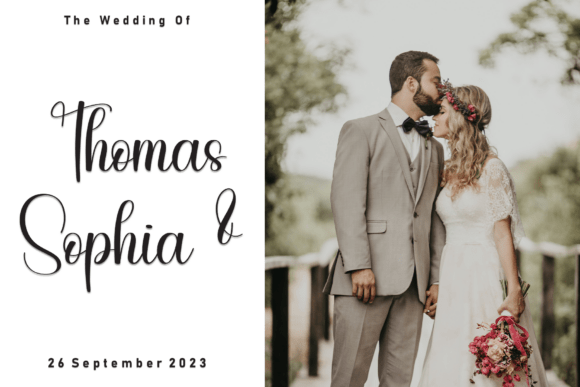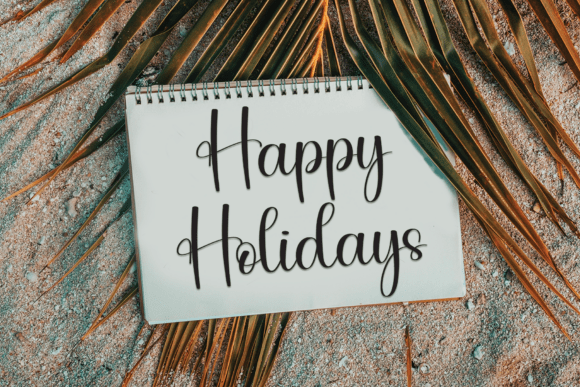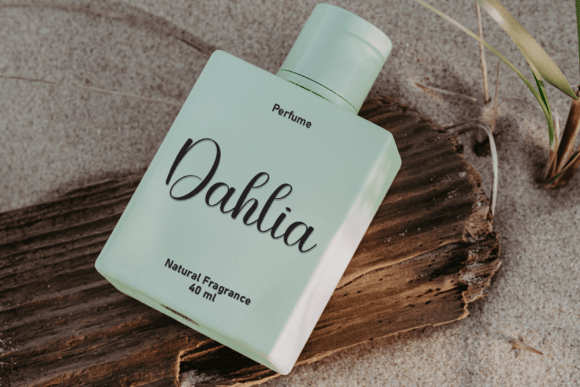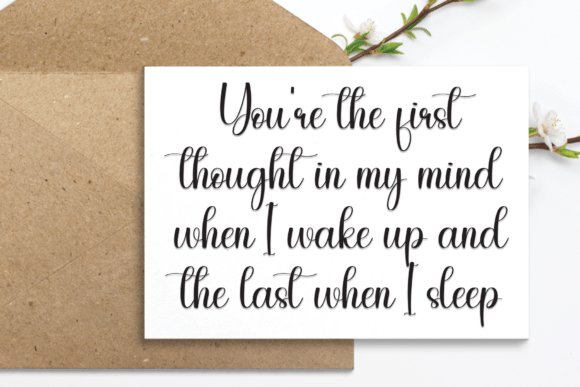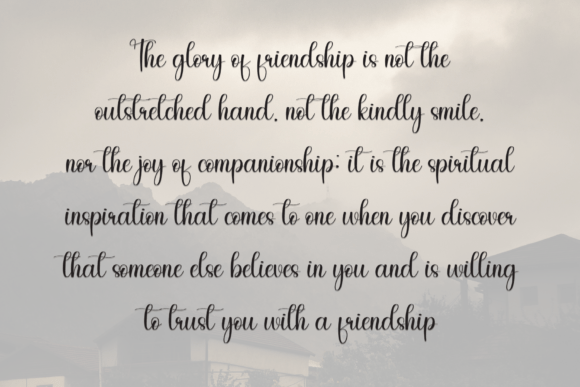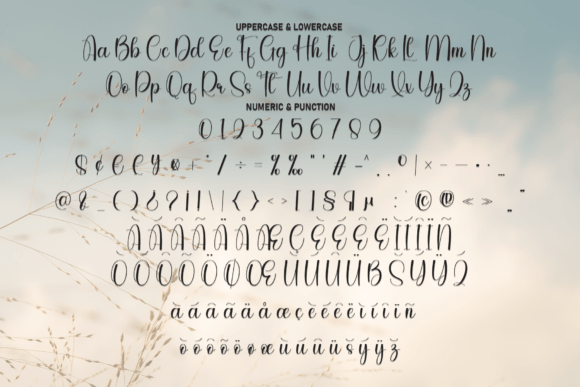
Aesthetic Font: Adding a Touch of Sweetness and Friendliness to Your Designs
In the world of typography, fonts play a crucial role in conveying the tone and personality of a design. When it comes to creating visually appealing and emotive designs, the right font can make all the difference. This is where our handcrafted display font comes in – a delightful and charming font that embodies an intimate touch of sweetness and friendliness. In this article, we’ll dive into the features and benefits of this aesthetic font, and explore how it can elevate your design projects.
The Charm of Handcrafted Typography
Our aesthetic font is a handcrafted display font that exudes a sense of warmth and personality. Unlike generic fonts, our font is carefully crafted to convey a sense of intimacy and friendliness, making it perfect for designs that require a personal touch. The font’s unique character set and whimsical flair make it an excellent choice for a variety of design projects, from wedding invitations and heartfelt cards to branding and packaging.
One of the standout features of our aesthetic font is its versatility. The font is designed to be adaptable and can be used in a range of design contexts, from digital to print. Whether you’re creating a social media graphic, a wedding invitation, or a product label, this font is sure to shine. Its charm and character will add a touch of personality to your design, setting it apart from more generic and bland fonts.
Perfect for Wedding Invitations and Heartfelt Cards
Our aesthetic font is particularly well-suited for wedding invitations and heartfelt cards. The font’s sweet and friendly tone makes it perfect for conveying love, appreciation, and gratitude. The font’s elegant and refined appearance also makes it suitable for more formal designs, such as event invitations and formal announcements.
Adding a Dash of Joy to Your Designs
Our aesthetic font is designed to bring a dash of joy and whimsy to your designs. The font’s playful and charming character set is sure to captivate and engage your audience, infusing your work with an extra sprinkle of fun. Whether you’re creating a design for a client or working on a personal project, this font is sure to bring a smile to your face and add a touch of personality to your work.
Why Choose Our Aesthetic Font?
So, why choose our aesthetic font for your design projects? Here are just a few reasons:
- Unique character set: Our font features a unique character set that is designed to convey a sense of sweetness and friendliness.
- Versatility: Our font is adaptable and can be used in a range of design contexts, from digital to print.
- Elegant and refined: Our font has an elegant and refined appearance that makes it suitable for formal designs.
- Playful and charming: Our font is playful and charming, making it perfect for designs that require a dash of joy and whimsy.
Tips for Using Our Aesthetic Font
Here are a few tips for using our aesthetic font in your design projects:
- Use it for headings: Our font is perfect for headings and titles, where its unique character set and whimsical flair can really shine.
- Pair it with other fonts: Our font pairs well with other fonts, making it easy to create visually appealing and harmonious designs.
- Experiment with colors: Our font looks great in a range of colors, so don’t be afraid to experiment and find the perfect hue for your design.
In conclusion, our aesthetic font is a handcrafted display font that embodies an intimate touch of sweetness and friendliness. With its unique character set, versatility, and elegant appearance, this font is perfect for a range of design projects, from wedding invitations and heartfelt cards to branding and packaging. Whether you’re a designer or crafter, our aesthetic font is sure to captivate and engage your audience, infusing your work with an extra sprinkle of fun.